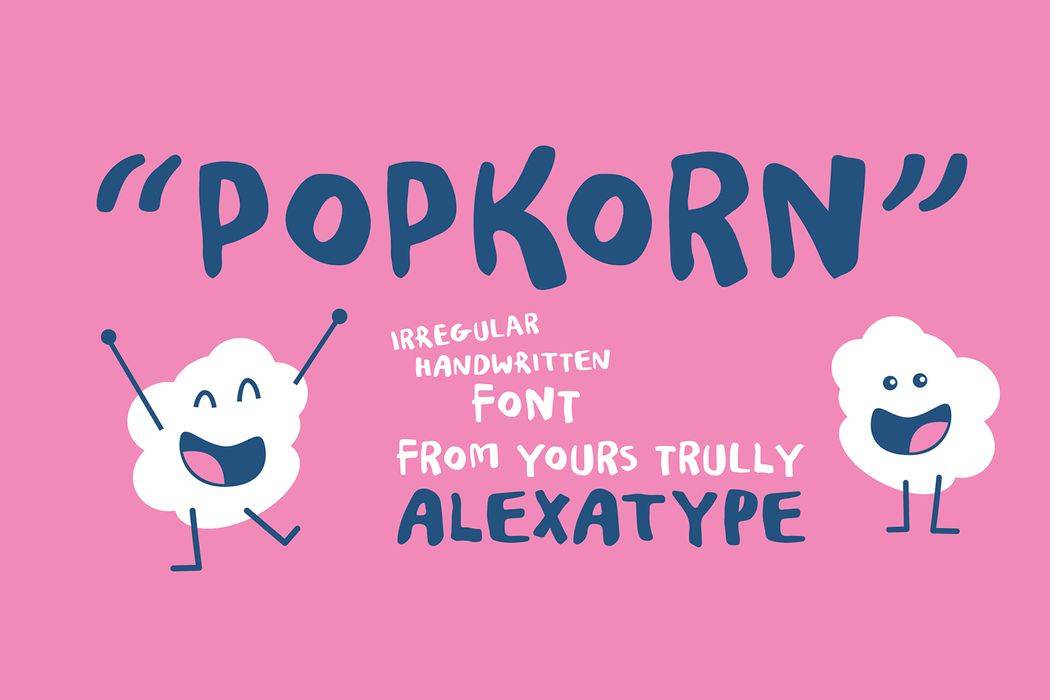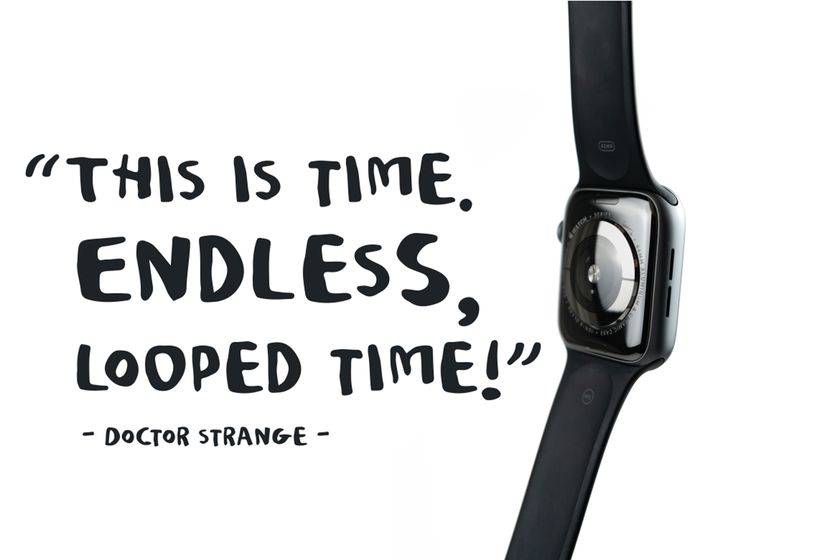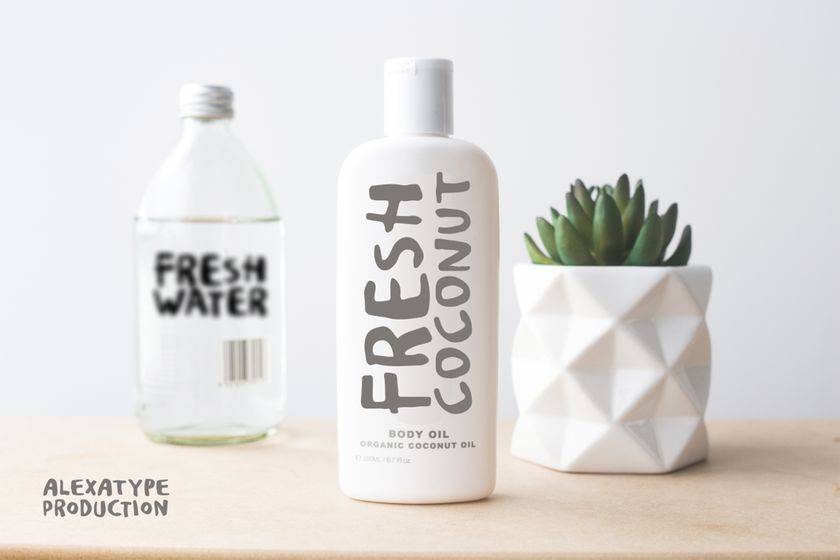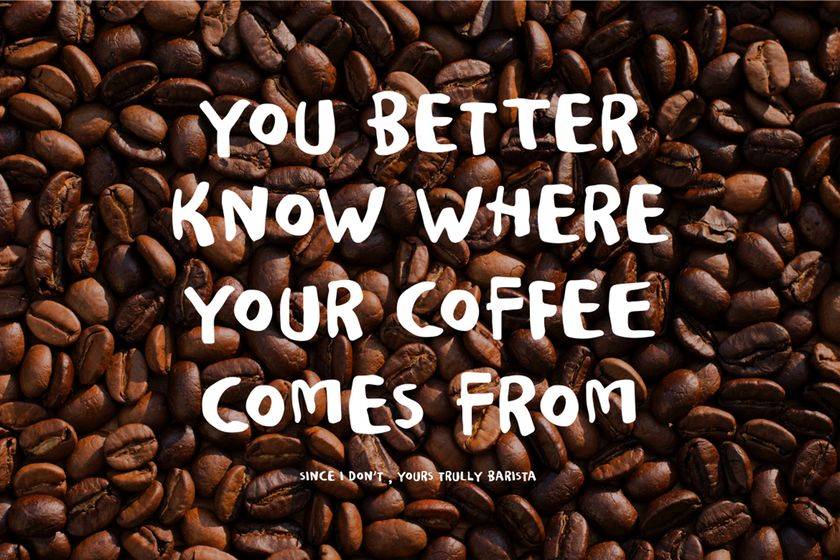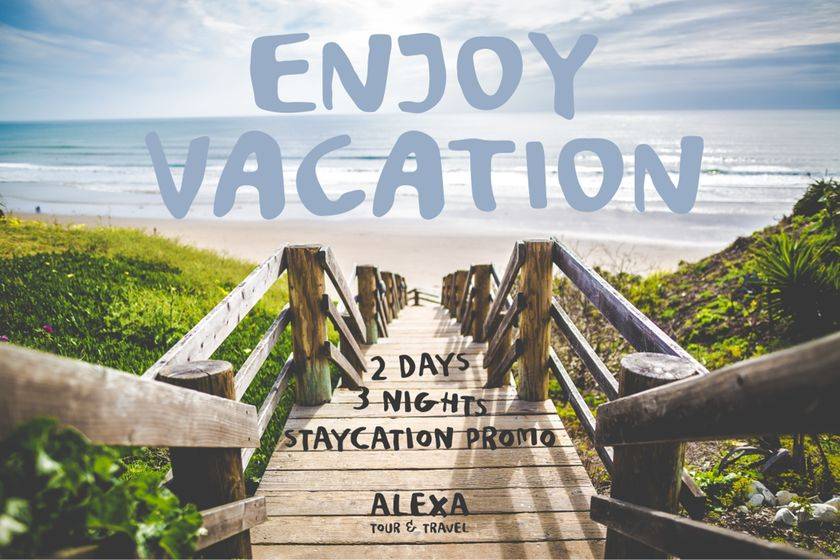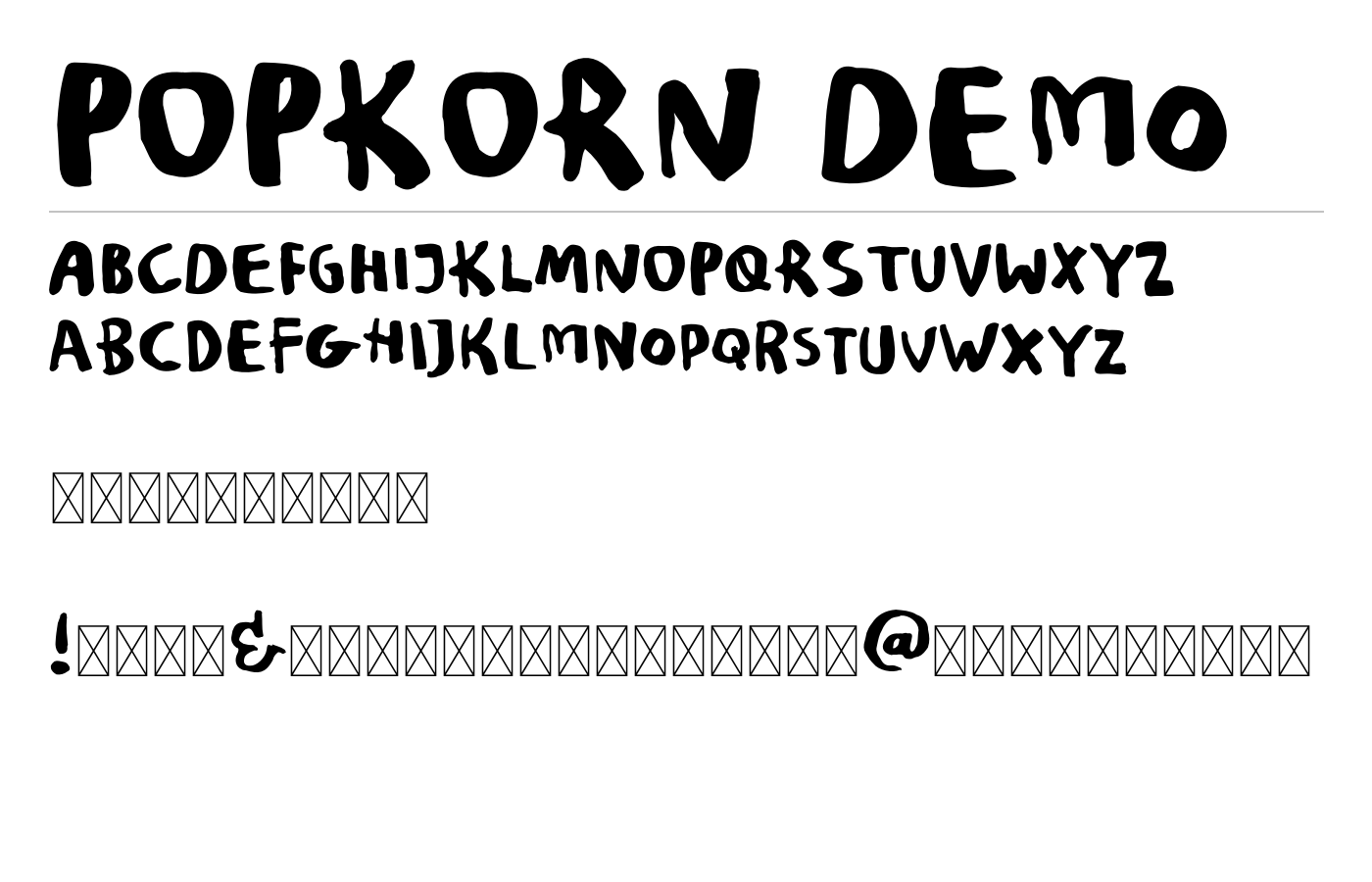
Popkorn Font is a quirky, hand-drawn sans serif typeface featuring irregular, bold letterforms with a playful and casual vibe. Its uneven strokes and slightly condensed width give it an approachable, fun personality, making it perfect for informal designs, children’s materials, or creative branding that aims to feel lively and unique. This font works best in headlines, logos, and projects where a hand-crafted, friendly touch is desired.
Popkorn Font
About Popkorn Font